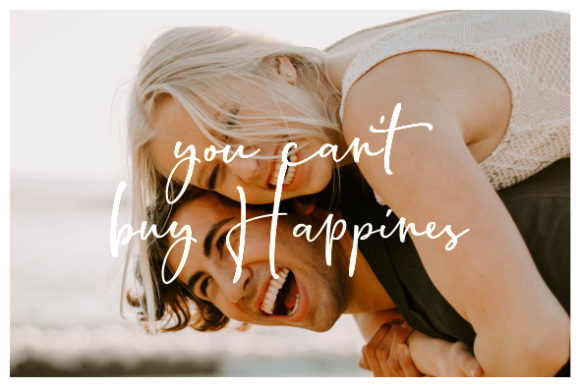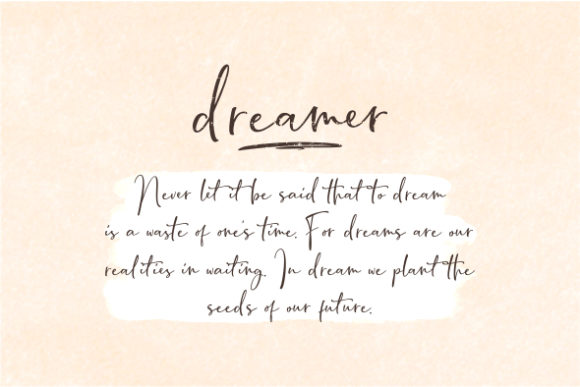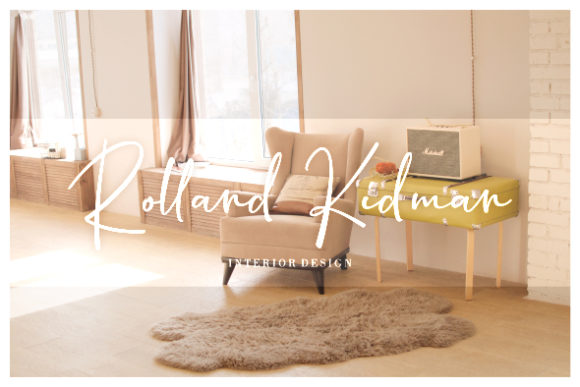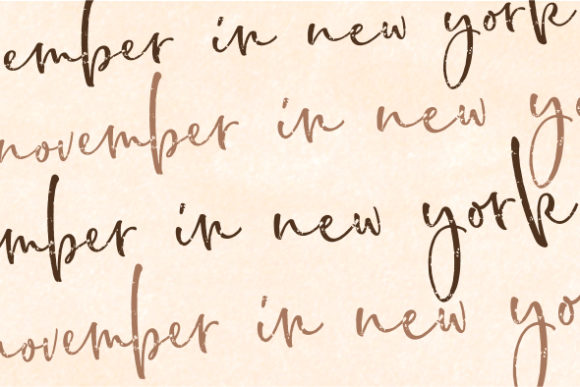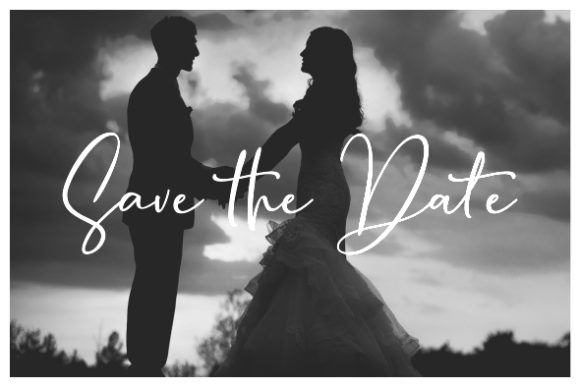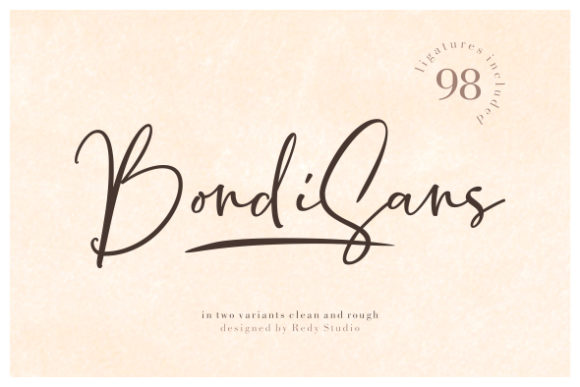
BondiSans Font: The Ultimate Guide to this Bold, Messy Script Font
Are you a designer or crafter looking for a unique and eye-catching font to elevate your creative projects? Look no further than BondiSans Font! This bold, messy script font is perfect for adding a touch of personality to your designs, and in this article, we’ll dive into its features, uses, and benefits.
What is BondiSans Font?
BondiSans Font is a bold, messy script font that boasts a unique handwritten feel with a rough touch. Its irregularities and imperfections give it a charming, organic look that’s perfect for designs that need a bit of character. Whether you’re creating logos, printed quotes, badges, insignia, packaging, headlines, greeting cards, wedding invitations, or more, BondiSans Font is an excellent choice.
Key Features of BondiSans Font
- Bold and Messy: BondiSans Font is a bold and messy script font that makes a statement. Its bold strokes and irregularities give it a dynamic, energetic feel that’s perfect for grabbing attention.
- Unique Handwritten Feel: This font has a unique handwritten feel that’s perfect for adding a personal touch to your designs. Its rough texture and imperfections give it a charming, organic look that’s hard to replicate with digital fonts.
- Versatile: BondiSans Font is incredibly versatile and can be used for a wide range of design projects, from logos and branding to packaging and marketing materials.
Uses of BondiSans Font
BondiSans Font is perfect for a variety of design projects, including:
- Logos: Create a bold and eye-catching logo that makes a statement with BondiSans Font.
- Printed Quotes: Add a touch of personality to your printed quotes with this unique and eye-catching font.
- Badges and Insignia: Create custom badges and insignia with BondiSans Font for a bold and striking look.
- Packaging: Use BondiSans Font to add a personal touch to your packaging designs and make them stand out.
- Headlines: Create bold and attention-grabbing headlines with BondiSans Font that’s perfect for marketing materials and advertising.
- Greeting Cards: Add a touch of personality to your greeting cards with BondiSans Font.
- Wedding Invitations: Create beautiful and unique wedding invitations with BondiSans Font that’s perfect for special occasions.
Benefits of Using BondiSans Font
So, why should you use BondiSans Font for your design projects? Here are just a few benefits:
- Unique and Eye-Catching: BondiSans Font is a unique and eye-catching font that will make your designs stand out from the crowd.
- Easy to Read: Despite its bold and messy texture, BondiSans Font is surprisingly easy to read, making it perfect for body text and headlines.
- Versatile: BondiSans Font is incredibly versatile and can be used for a wide range of design projects.
- Time-Saving: With BondiSans Font, you can create professional-looking designs in no time, saving you time and effort.
Tips and Tricks for Using BondiSans Font
Here are a few tips and tricks for getting the most out of BondiSans Font:
- Experiment with Colors: BondiSans Font looks great in a variety of colors, so don’t be afraid to experiment and find the perfect hue for your design.
- Mix and Match: Try mixing and matching BondiSans Font with other fonts to create a unique and eye-catching look.
- Pay Attention to Kerning: As with any font, pay attention to kerning to ensure that your text looks professional and polished.
| Font Name | BondiSans Font |
| Author | RedyStudio |
In conclusion, BondiSans Font is a bold, messy script font that’s perfect for designers and crafters looking to add a touch of personality to their designs. With its unique handwritten feel, rough texture, and versatility, BondiSans Font is an excellent choice for a wide range of design projects. Whether you’re creating logos, printed quotes, badges, insignia, packaging, headlines, greeting cards, wedding invitations, or more, BondiSans Font is sure to make a statement.